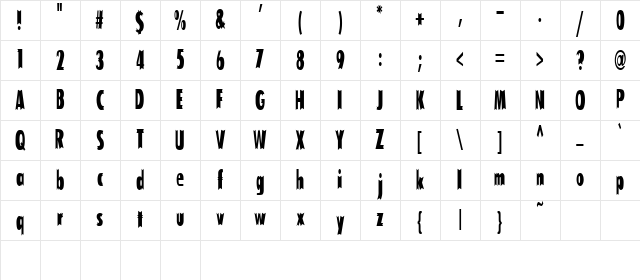
Tofu Cond Free Font
Tofu Cond
Style: Cond
Design Context for Tofu
Tofu is a composed and adaptable typeface that performs quietly and consistently across a wide range of design contexts. Its narrow stance lets it pack a punch even in space-constrained designs.